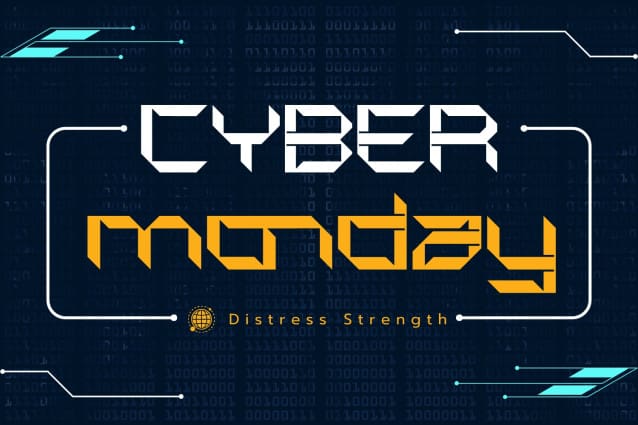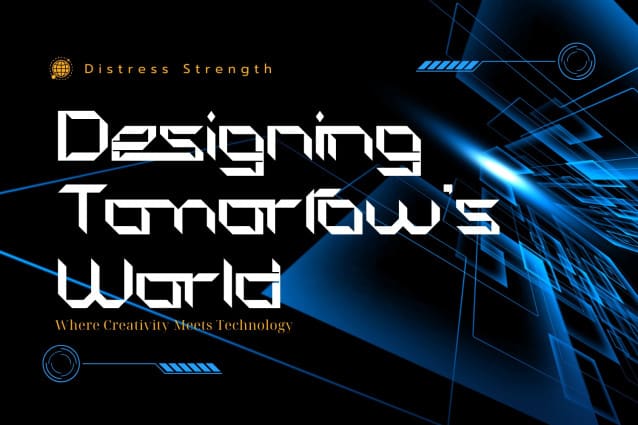
Distress Strength Font
Distress Strength Font is two fonts which helping to create hi-tech cyberpunk and gothic atmosphere and style. It is good looking as header and as text both. This font is perfect for anything related to robotics, such as gaming, sci-fi, or futuristic branding. Its edgy and high-tech vibe also makes it an excellent choice for sports cars, garages, and other speed-related themes.
Distress Strength was built with OpenType features and includes 100 ligatures, alternate, numbers, punctuation, and it also supports other languages.